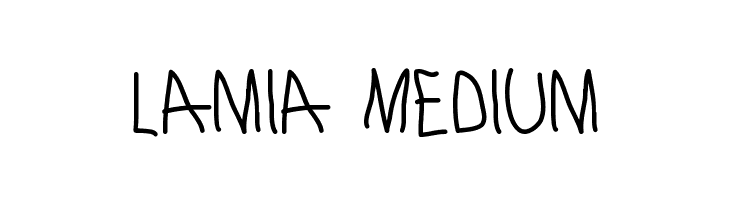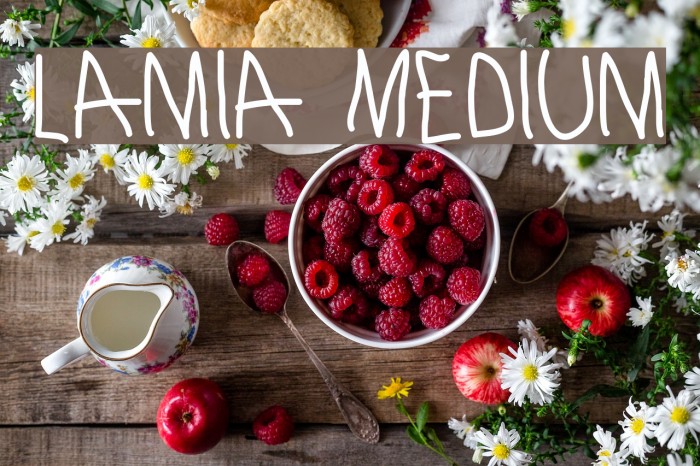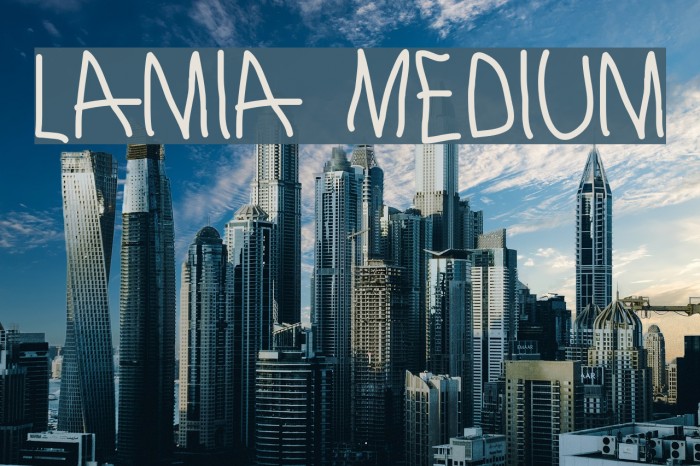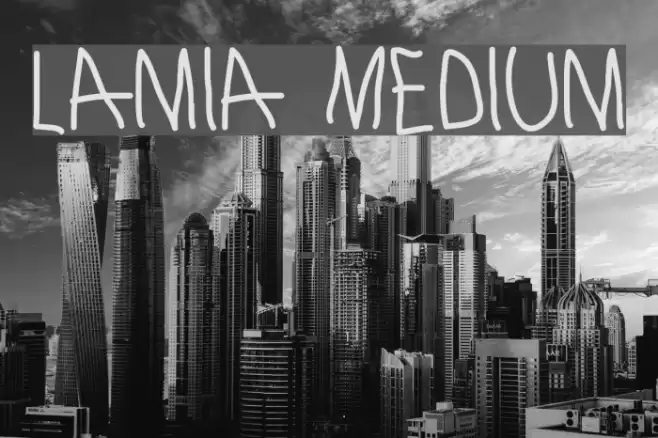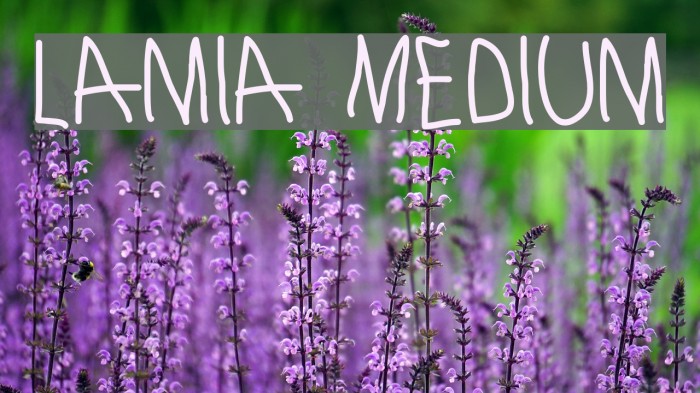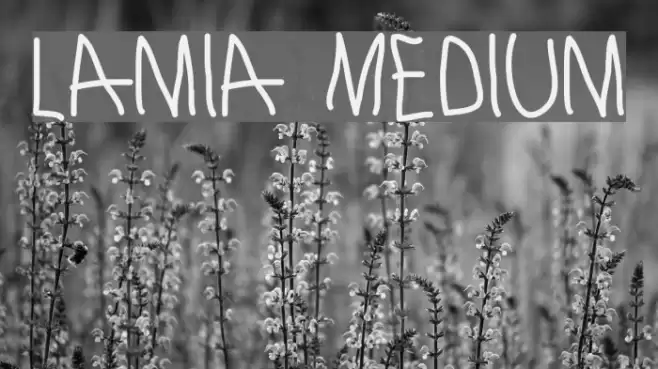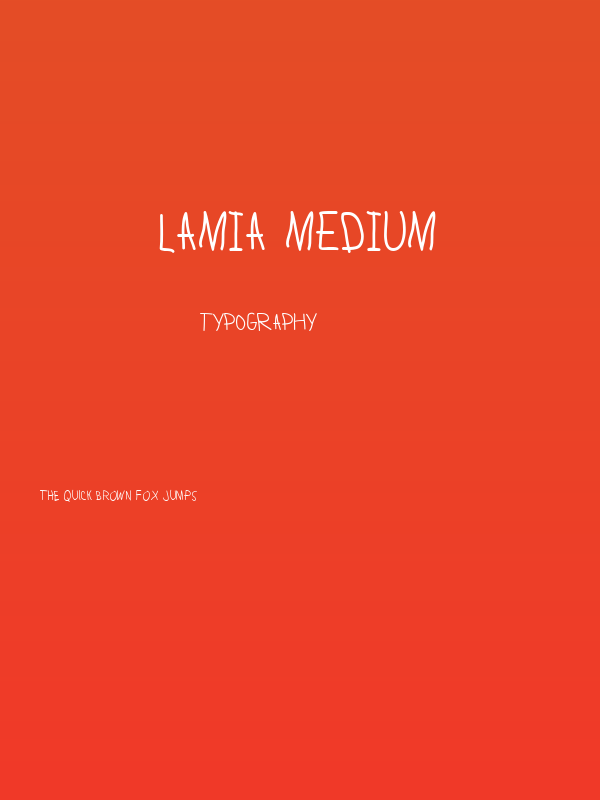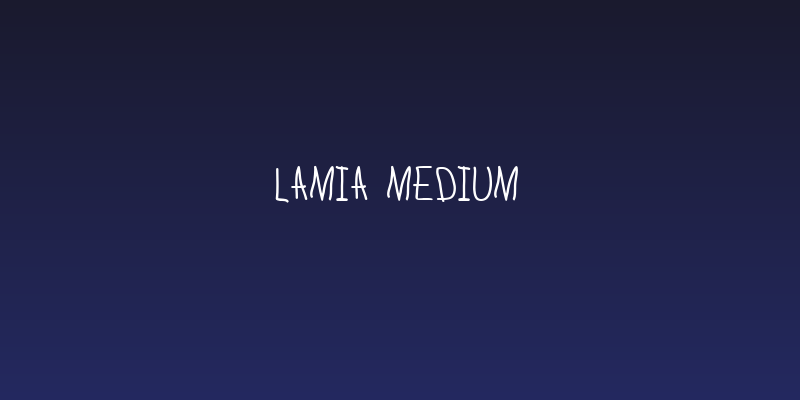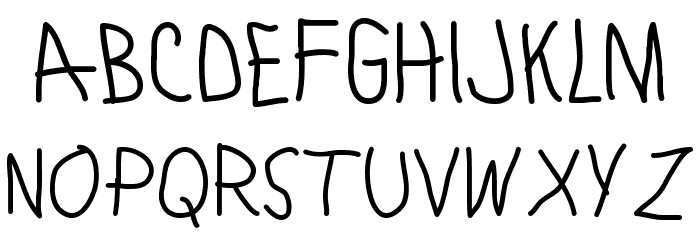
Lamia Medium Font
Lamia Medium Description
This font features a playful and informal handwritten style, characterized by its irregular strokes and casual appearance. The letters are slightly slanted, giving a dynamic and lively feel. The uppercase and lowercase letters maintain a consistent style, with rounded edges and a slightly uneven baseline, adding to its charm. Numbers and special characters follow the same whimsical design, making it suitable for creative and informal projects. The overall look is approachable and friendly, ideal for conveying a personal touch.
| Proposed Projects | Great for greeting cards, children's books, casual branding, and social media graphics. |